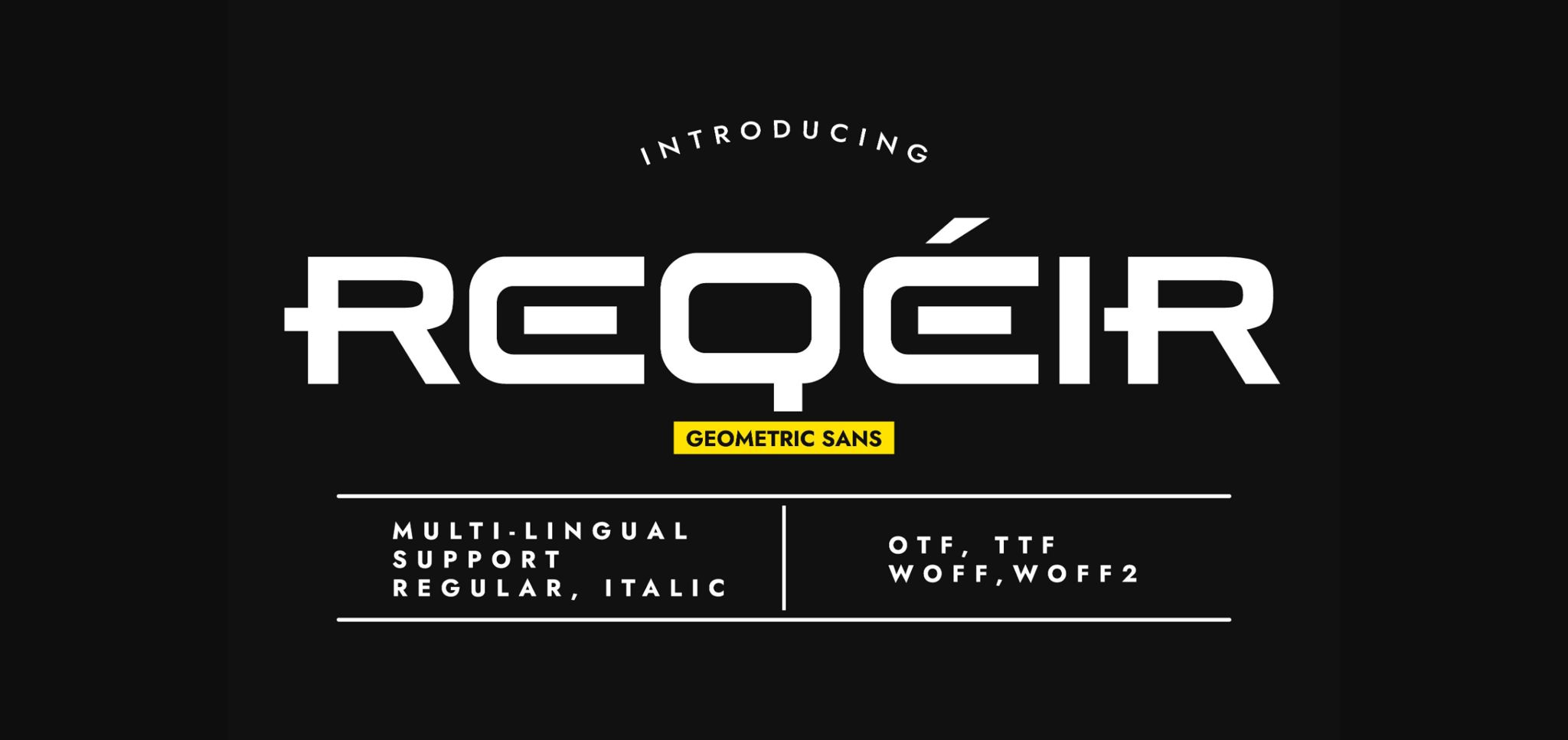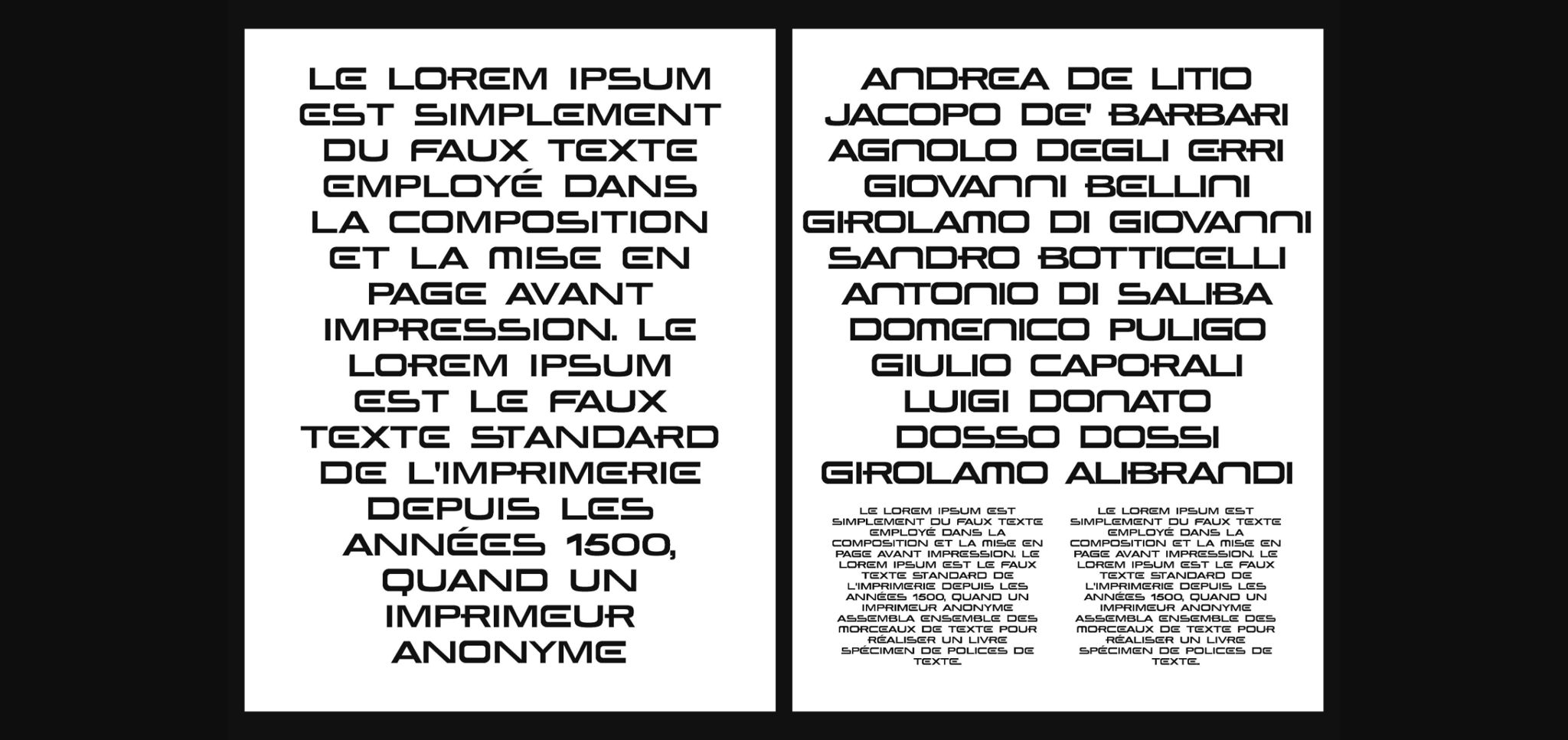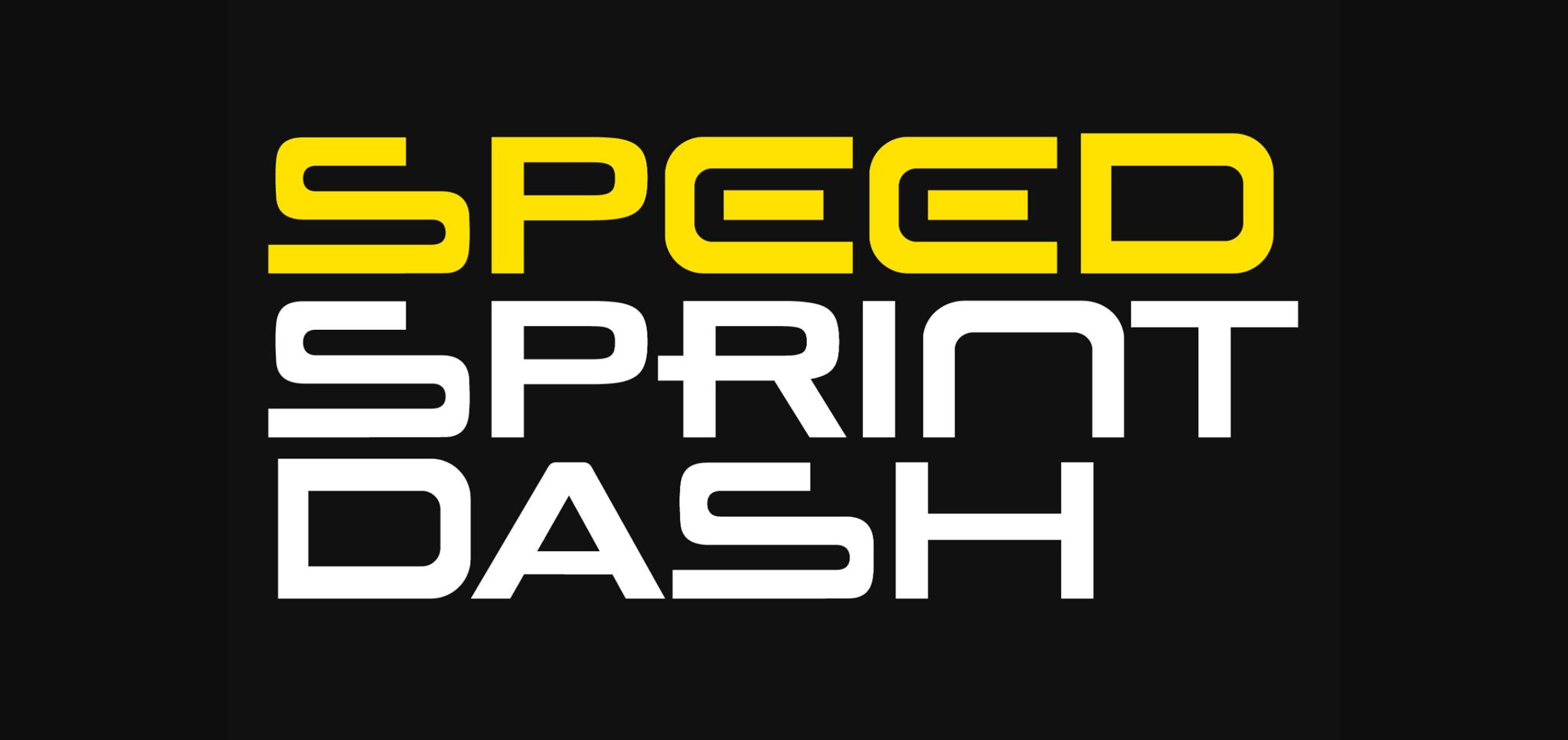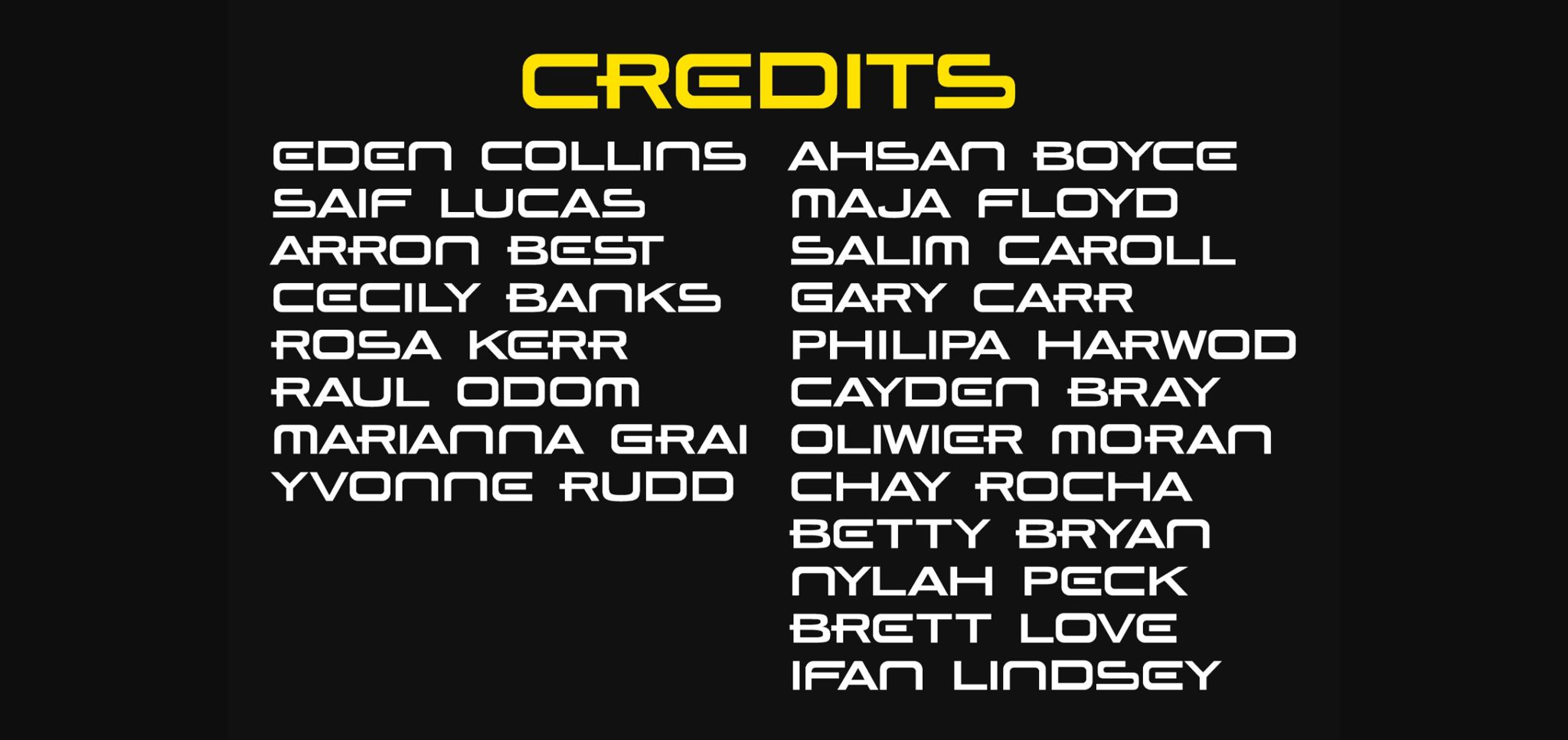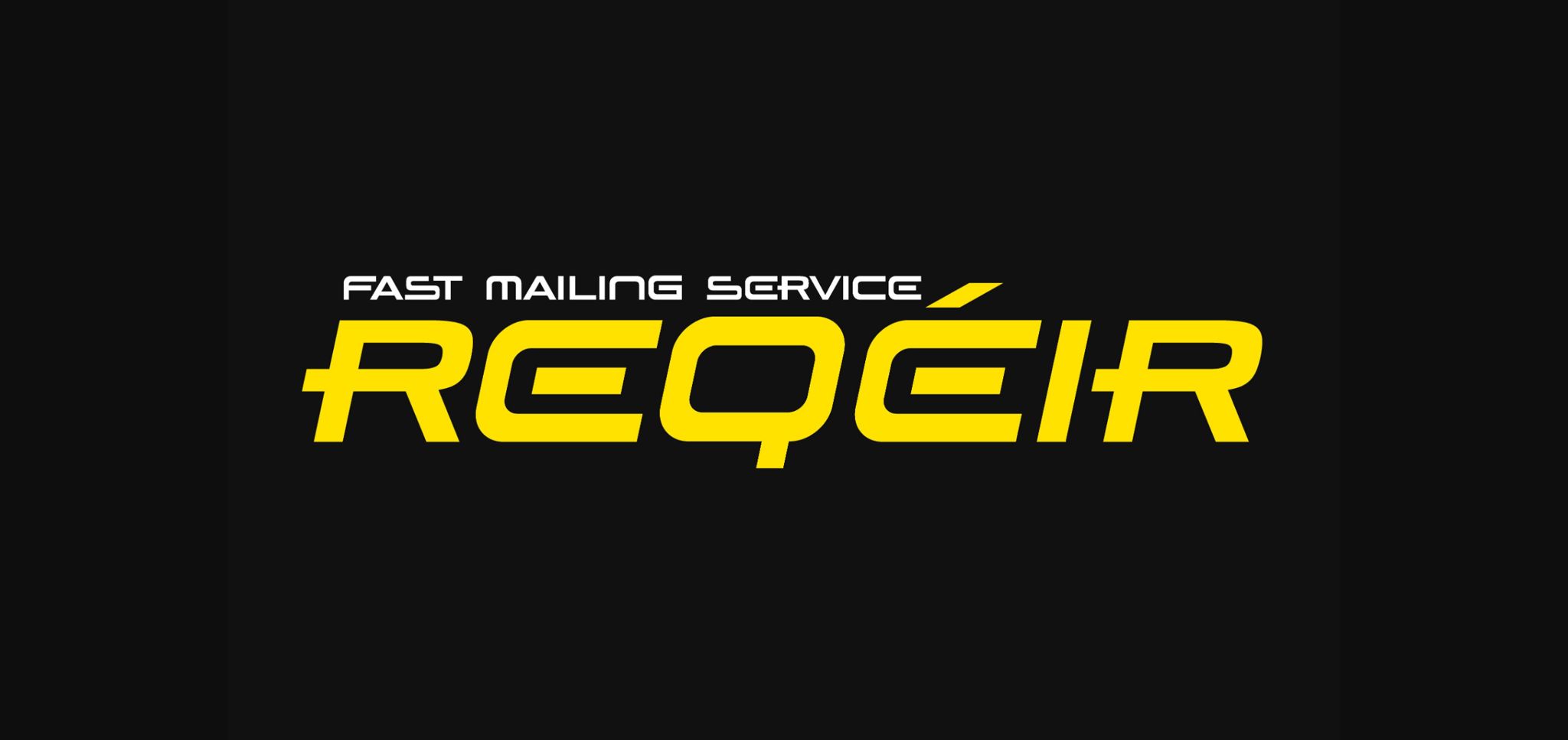
About Reqeir Font
Reqèir is a modern revolutionary wide sans serif typeface. Its wide glyphs construction and minimalist aspect render it an incredible choice when you are doing branding design, headings, website banners, social posts, packaging design, sports posters, racing, energy drink packaging, etc. Add it to your library, and you will notice how easy becomes one of your favorite types.